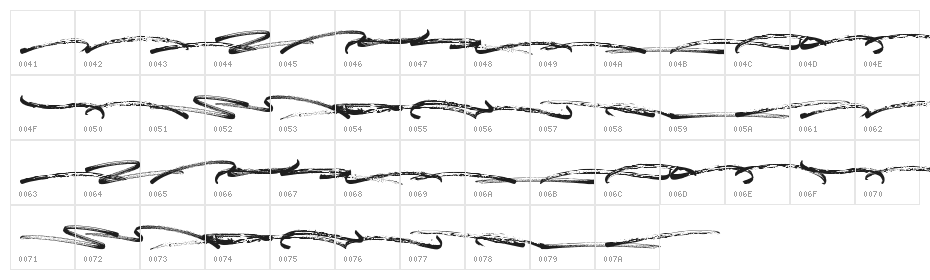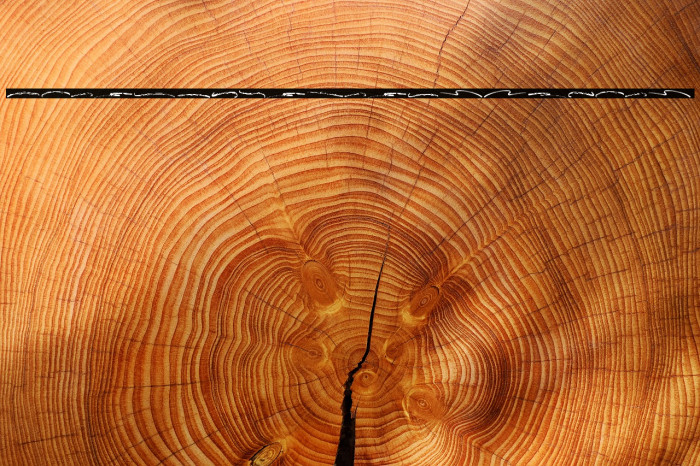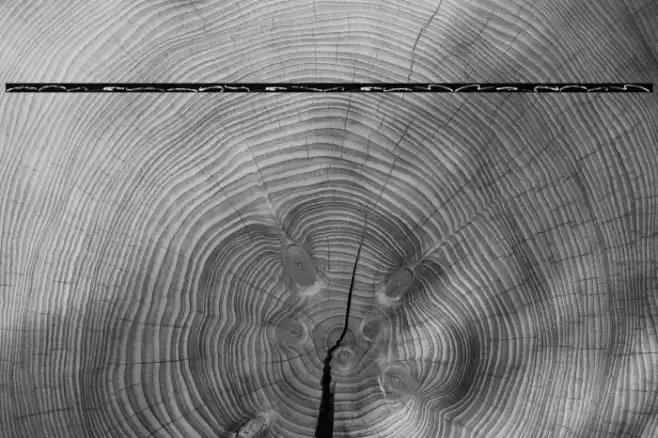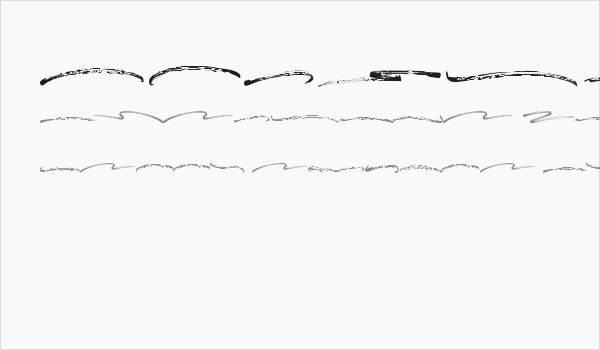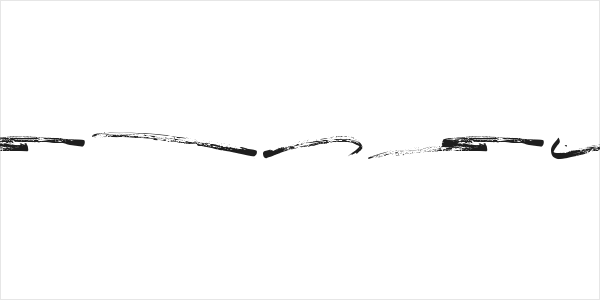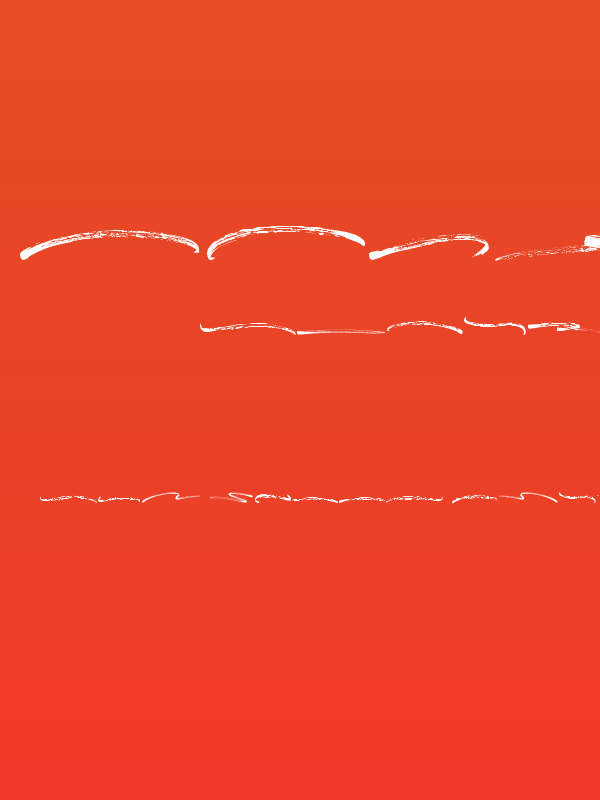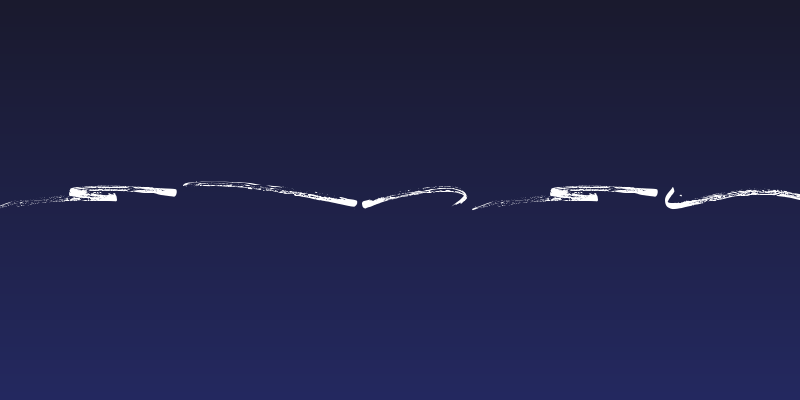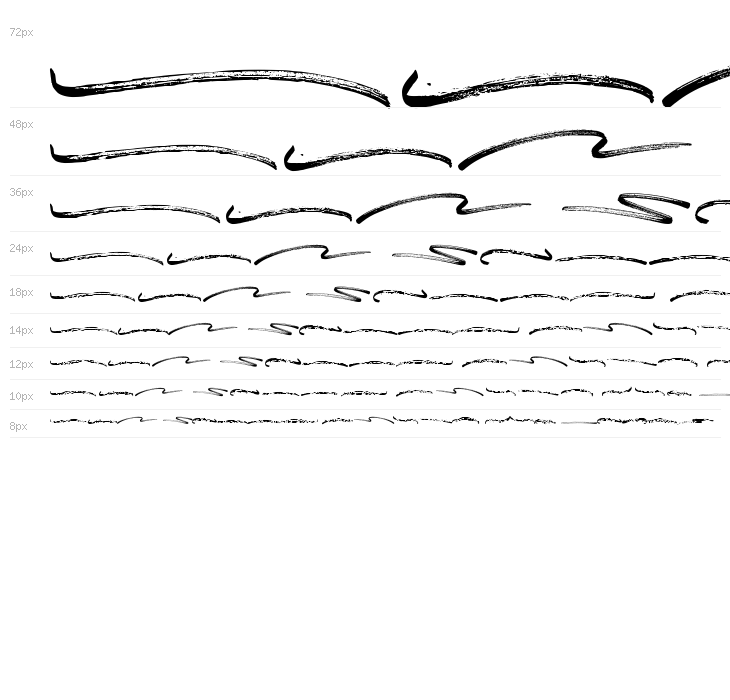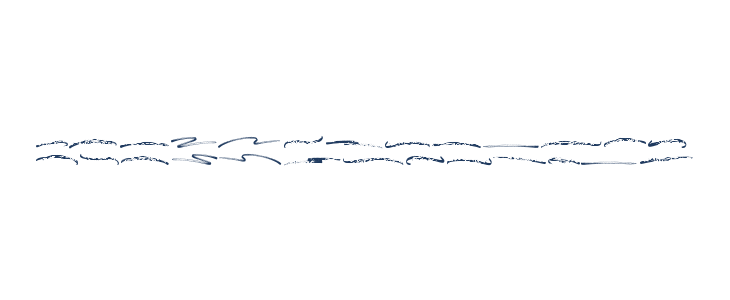
BlastimoSwash-Regular Font
BlastimoSwash-Regular Description
This font features an elegant and flowing script style, characterized by its intricate swashes and flourishes. The letters are connected in a seamless manner, creating a sense of fluidity and movement. The strokes vary in thickness, adding a dynamic contrast that enhances its decorative appeal. This font exudes a sense of sophistication and artistry, making it ideal for projects that require a touch of elegance and creativity. Its unique design makes it stand out, capturing attention with its graceful curves and stylish appearance.
| Proposed Projects | Ideal for wedding invitations, luxury branding, greeting cards, and artistic projects. |